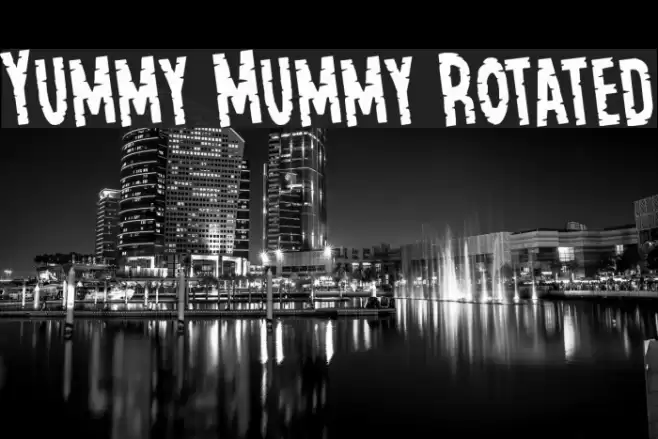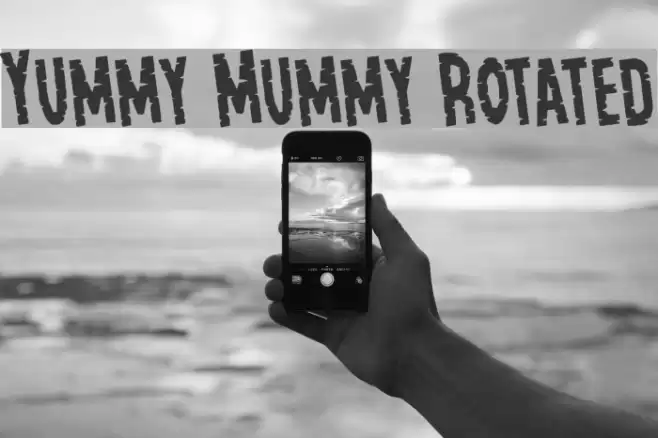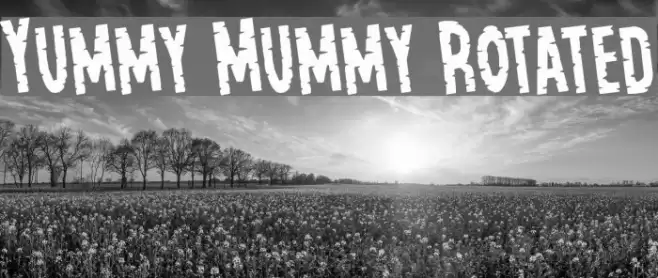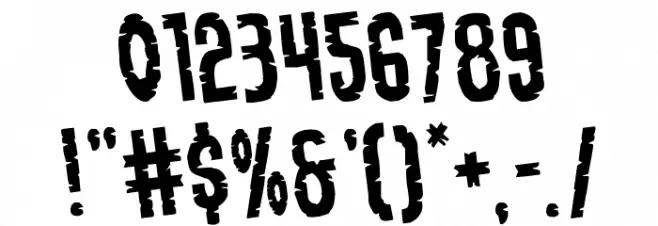
Yummy Mummy Rotated Font
Yummy Mummy Rotated Description
This font features a bold and rugged design with a distressed, textured appearance. The characters are slightly tilted, giving a dynamic and energetic feel. The uppercase and lowercase letters maintain a consistent style, with jagged edges and irregular strokes that create a sense of movement. The numbers and special characters follow the same aesthetic, making the font suitable for projects that require a bold and eye-catching look. The overall style is playful yet edgy, perfect for creative and unconventional designs.
A bold, distressed font with a dynamic and rugged appearance from Uncategorized fonts.
- Proposed Projects: Ideal for posters, album covers, Halloween-themed designs, and edgy branding projects.